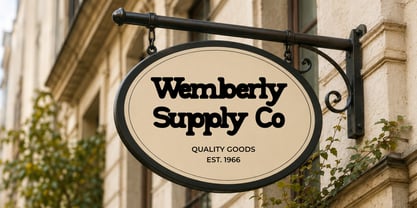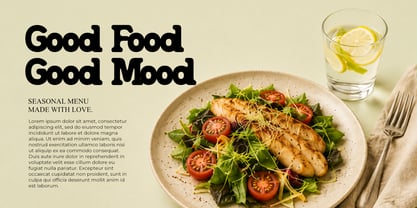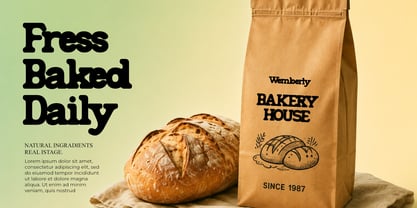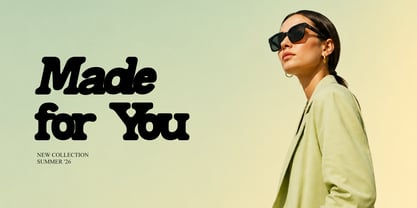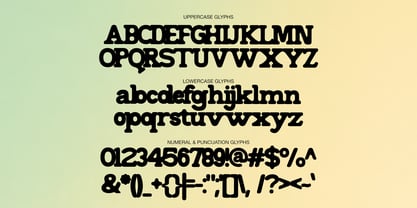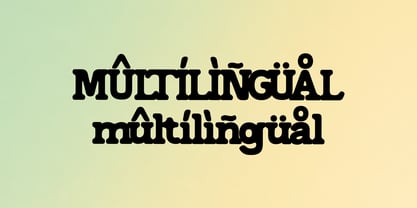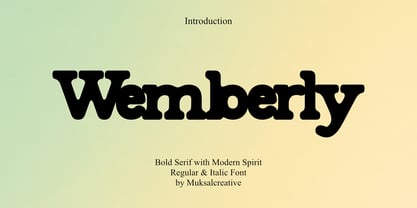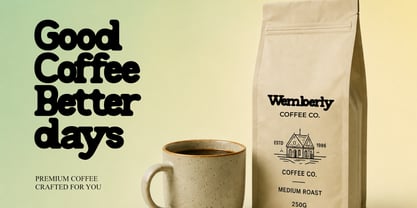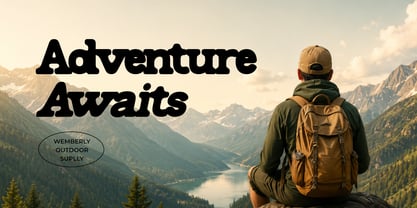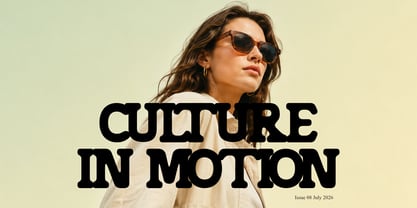
Wemberly
The Wemberly Font Family was designed by Muksalmina and published by Muksal Creatives. Wemberly contains 2 styles and family package options. More about this family
Wemberly is a bold vintage serif font with a strong and expressive personality. Featuring chunky letterforms, distinctive serifs, soft curves, and tight spacing, this font combines nostalgic charm with a fresh modern feel.
Wemberly comes in 2 styles: Regular and Italic, giving you more flexibility to create dynamic typography and visual hierarchy across your designs. Use the Regular style for bold and confident statements, while the Italic style adds movement and expressive character to your compositions.
Its distinctive character makes Wemberly perfect for eye-catching headlines, logos, branding, packaging, posters, editorial layouts, merchandise, signage, food and beverage branding, fashion projects, and social media designs.
Whether you're working on a vintage-inspired concept or a contemporary brand that needs a unique personality, Wemberly brings a warm, bold, and memorable look to your creative projects.